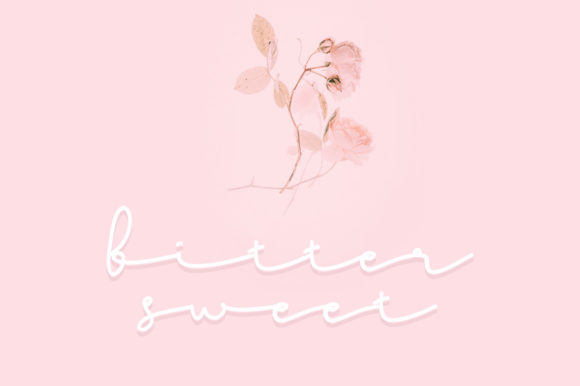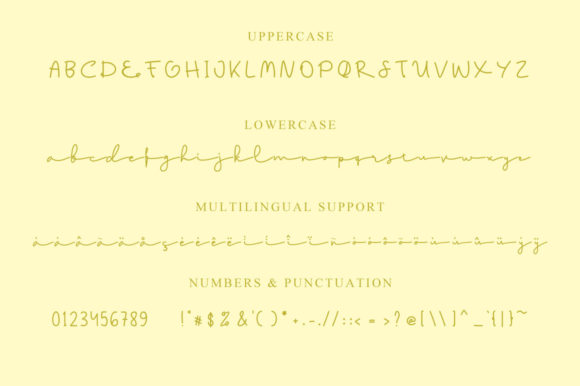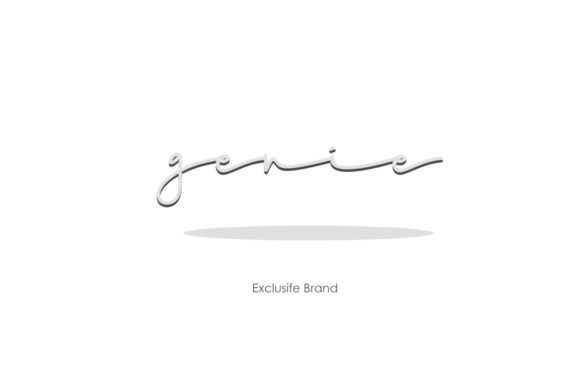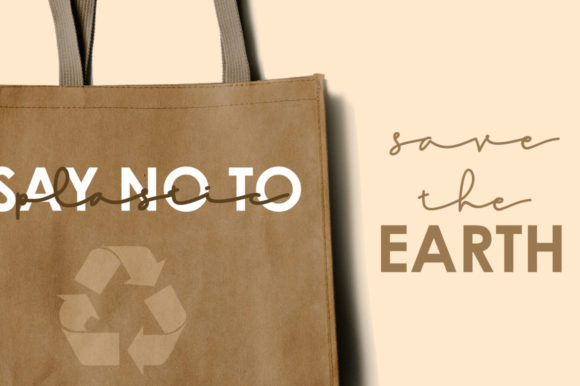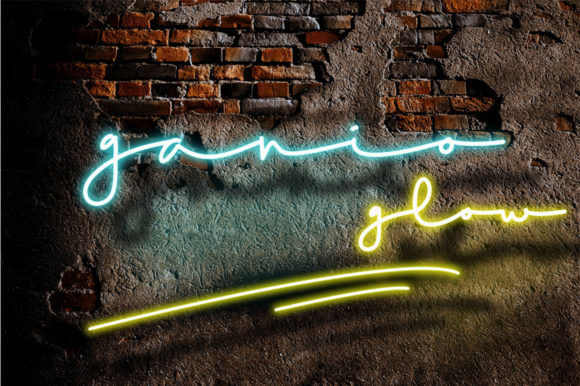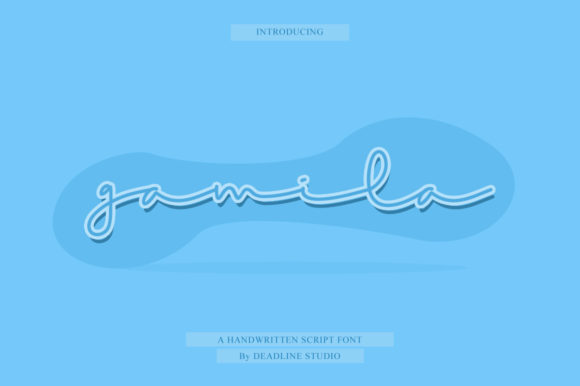
Gamila Font: Elevate Your Designs with Elegance and Sophistication
Are you tired of using the same old fonts in your designs? Look no further than Gamila Font, a stunning handwritten font that is sure to become your new favorite. With its perfect blend of classic calligraphic influences and modern freshness, Gamila Font is the ideal choice for designers and crafters looking to add a touch of elegance and sophistication to their projects.
The Story Behind Gamila Font
Gamila Font is a meticulously crafted font that boasts a unique and exquisite handwritten style. Its creator has masterfully designed it to exude a sense of luxury and refinement, making it perfect for high-end designs. Whether you’re working on a branding project, a wedding invitation, or a packaging design, Gamila Font is sure to impress.
What Makes Gamila Font Special?
So, what sets Gamila Font apart from other fonts out there? Here are just a few of its standout features:
• Classy Calligraphic Influences: Gamila Font boasts beautiful calligraphic influences that give it a sense of sophistication and elegance.
• Contemporary and Fresh: Despite its classic influences, Gamila Font feels modern and fresh, making it perfect for designers who want to create something new and exciting.
• Versatile: Gamila Font is incredibly versatile, making it suitable for a wide range of design projects, from logos and branding to invitations and packaging.
• Easy to Read: Gamila Font is not only beautiful, but it’s also easy to read, making it perfect for body text and headlines.
How to Use Gamila Font in Your Designs
Using Gamila Font in your designs is easy. Here are a few tips to get you started:
• Pair it with Other Fonts: Gamila Font pairs beautifully with other fonts, so don’t be afraid to experiment with different combinations. Try pairing it with a clean sans-serif font for a modern look or a serif font for a more traditional feel.
• Use it for Headlines and Titles: Gamila Font is perfect for headlines and titles, where its elegant and sophisticated style can really shine.
• Experiment with Colors: Gamila Font looks stunning in a variety of colors, from rich jewel tones to soft pastels. Experiment with different colors to find the perfect look for your design.
Why Designers and Crafters Love Gamila Font
So, why do designers and crafters love Gamila Font? Here are just a few reasons:
• Unique and Exclusive: Gamila Font is a unique and exclusive font that will set your designs apart from the crowd.
• High-Quality: Gamila Font is a high-quality font that is designed to deliver exceptional results.
• Easy to Use: Gamila Font is easy to use and works seamlessly with a wide range of design software.
In conclusion, Gamila Font is a stunning handwritten font that is sure to become a true favorite among designers and crafters. With its exquisite style, classy calligraphic influences, and modern freshness, it’s the perfect choice for anyone looking to add a touch of elegance and sophistication to their designs. So why wait? Fall in love with Gamila Font and bring your projects to the highest levels!